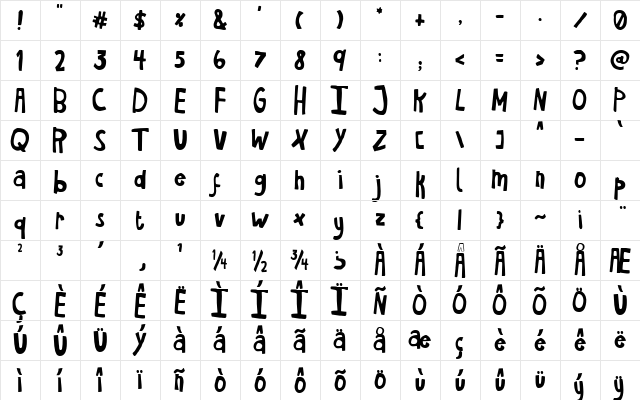
Havent Slept in Two Days Shadow Regular
| Foundry | Kimberly Geswein |
| Designer | Kimberly Geswein |
Design Context for Havent Slept in Two Days Shadow Typeface
Havent Slept in Two Days Shadow brings ornamental detail and strong personality to headlines and identities, where visual impact matters more than quiet functionality.
Font Pairing: Pair with a clean neutral sans-serif for body copy to let Havent Slept in Two Days Shadow's character lead without overwhelming the composition.
Pro Tip: Treat Havent Slept in Two Days Shadow as the centrepiece of your typographic hierarchy. One strong heading set in a decorative face can carry an entire layout.